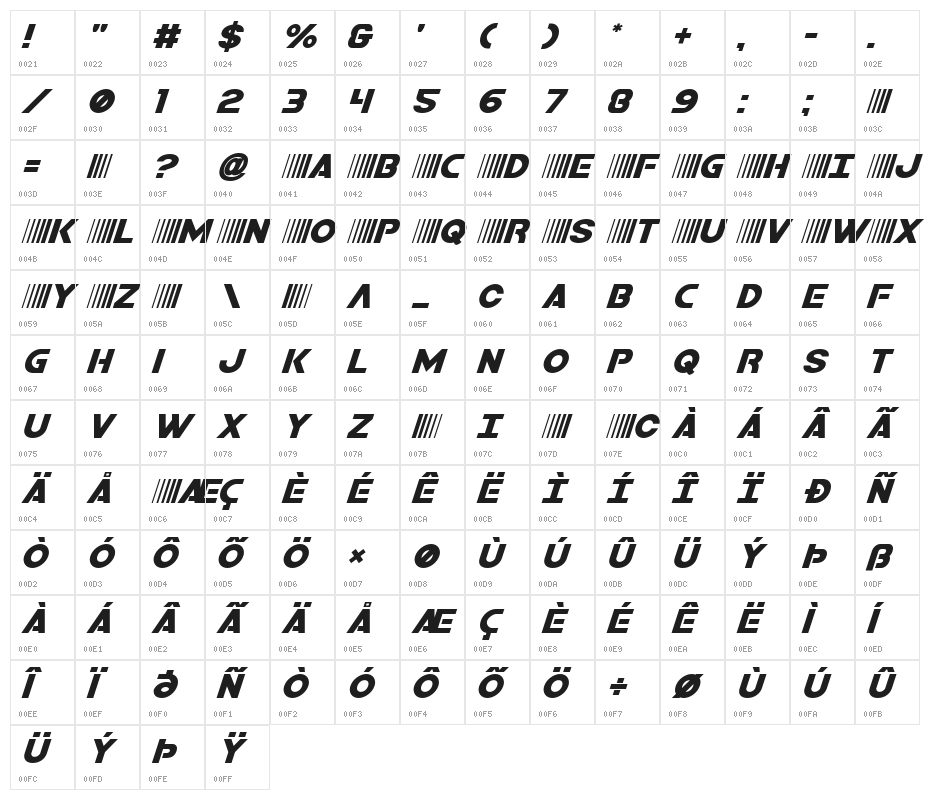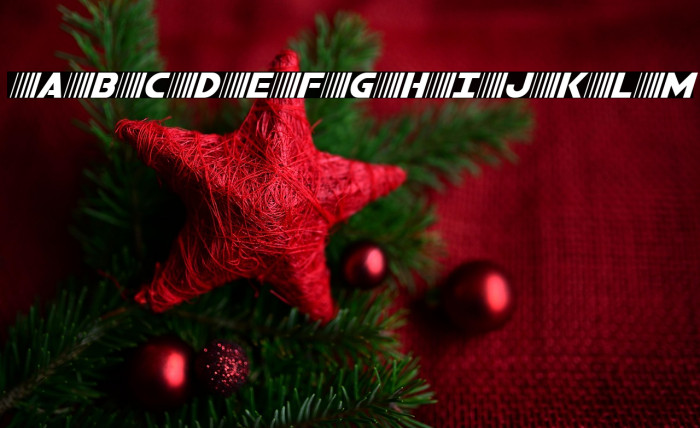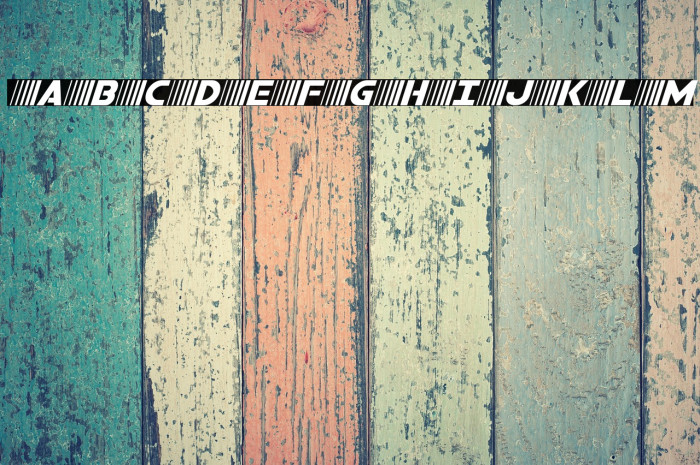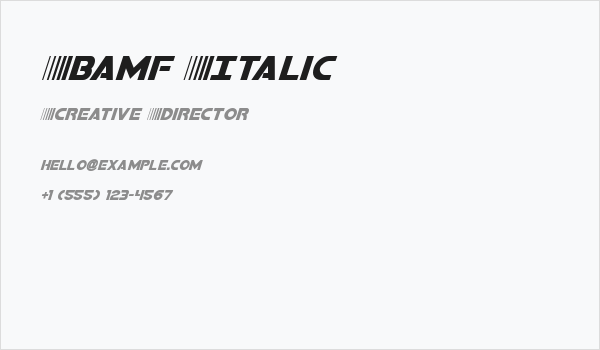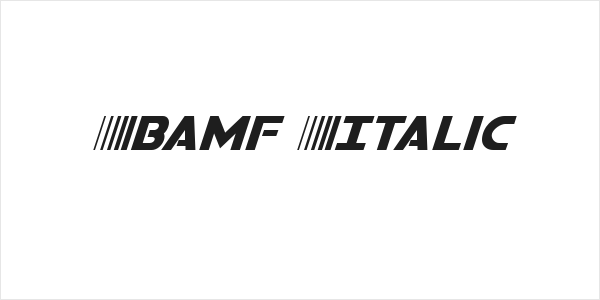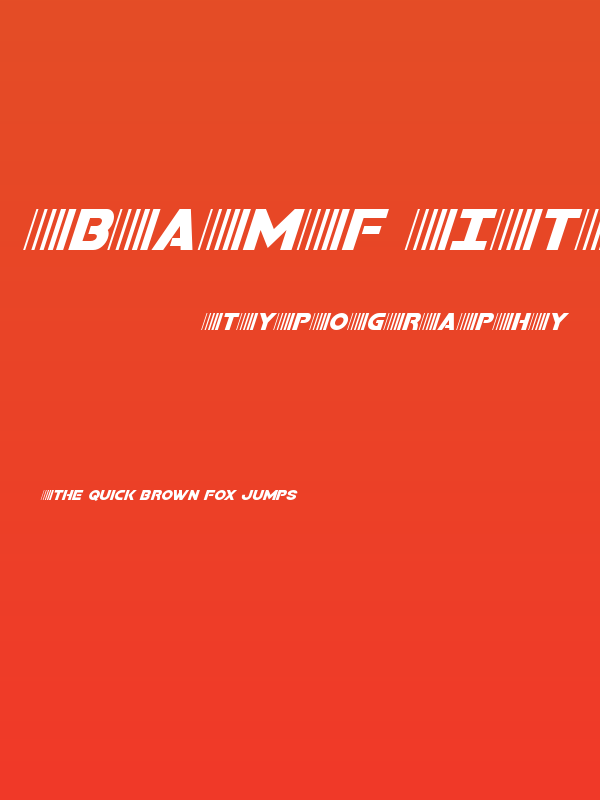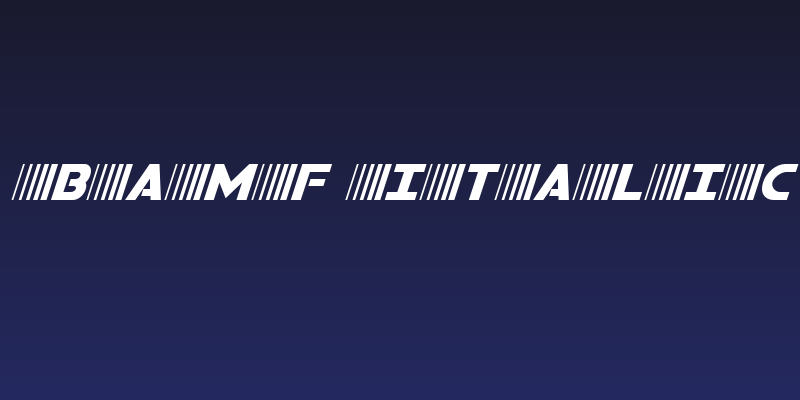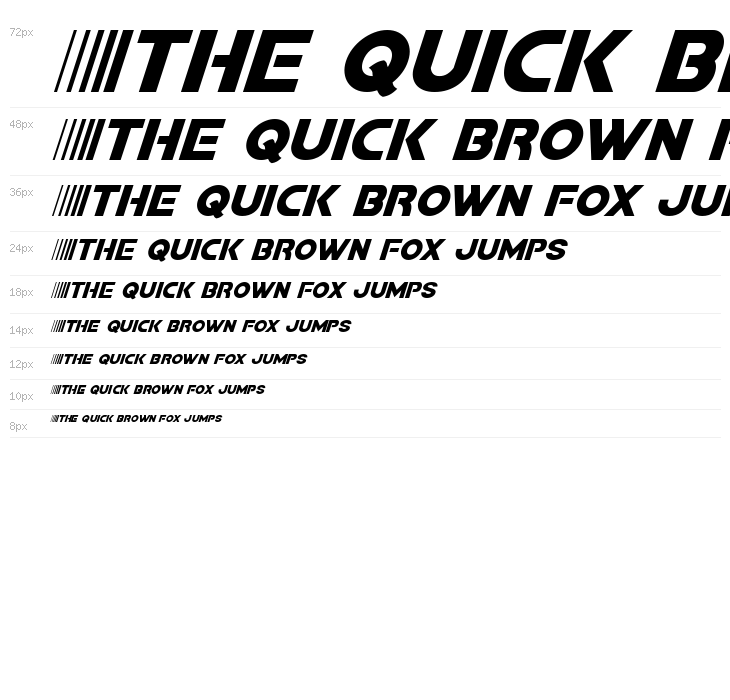
Bamf Italic Font
Bamf Italic Description
This font features a bold and dynamic style with a distinct italic slant, giving it a sense of motion and energy. The uppercase letters are robust and impactful, making them ideal for attention-grabbing headlines. The numerals are equally bold, ensuring they stand out in any context. Special characters are designed with the same boldness, maintaining consistency across the font. The overall design is modern and sleek, with a slight futuristic edge due to its italicized form and strong lines.
| Proposed Projects | Ideal for sports branding, dynamic posters, modern advertising, and any project requiring a bold, energetic typeface. |